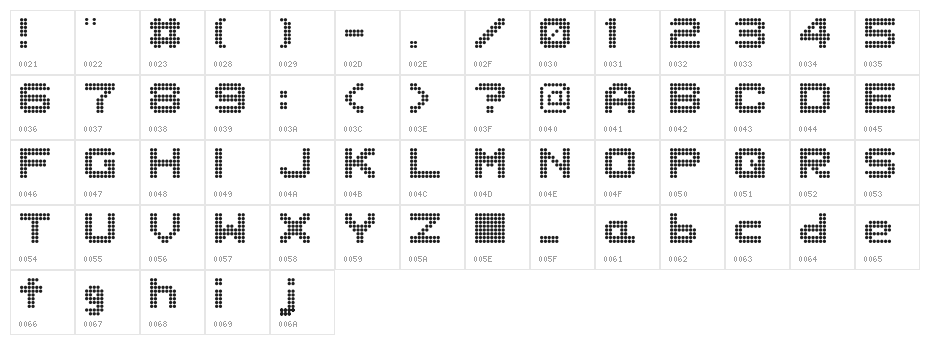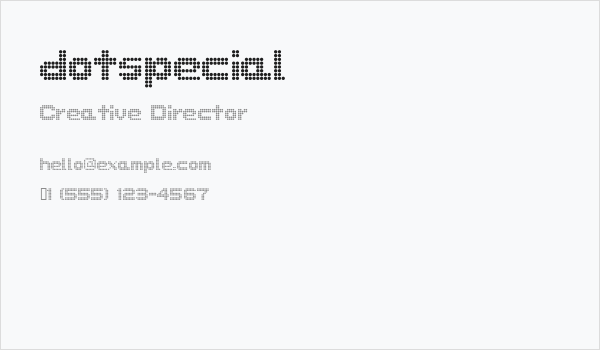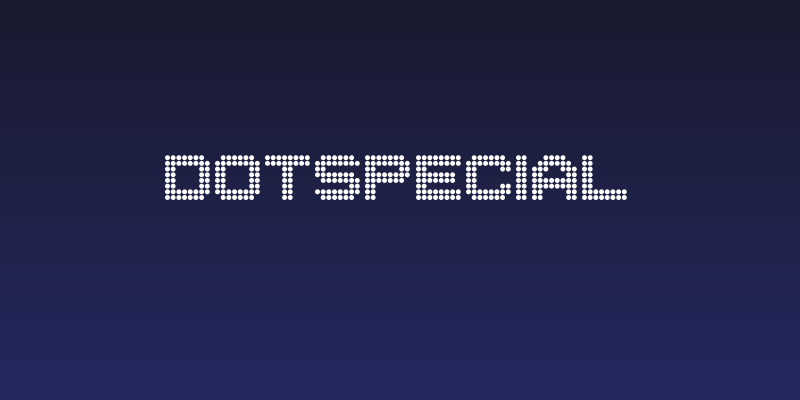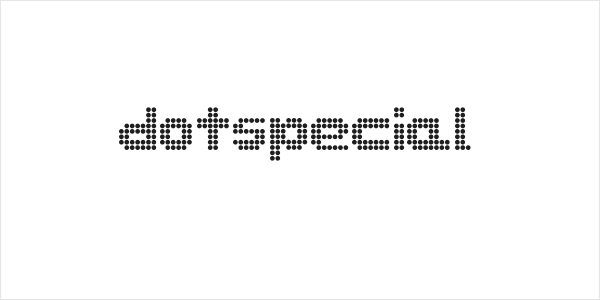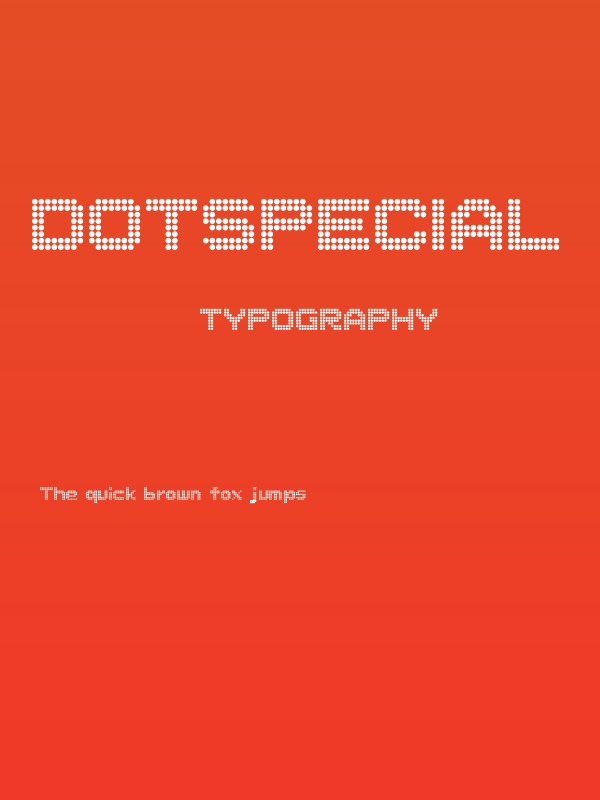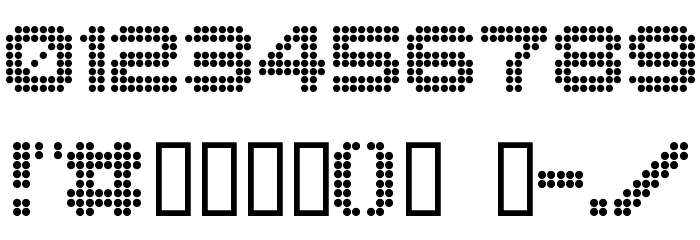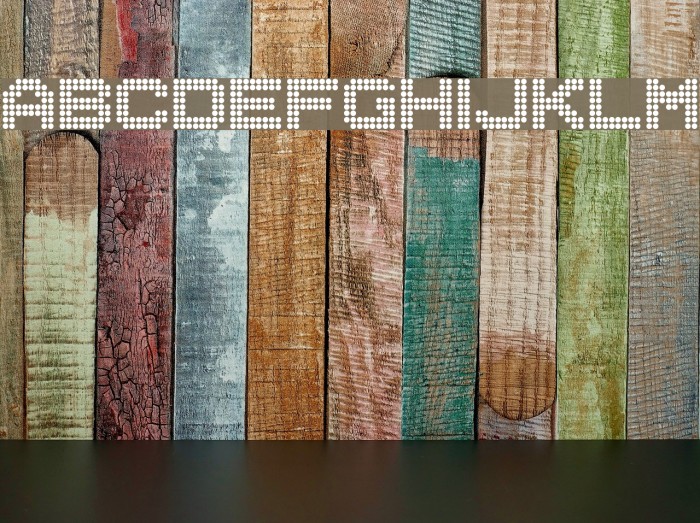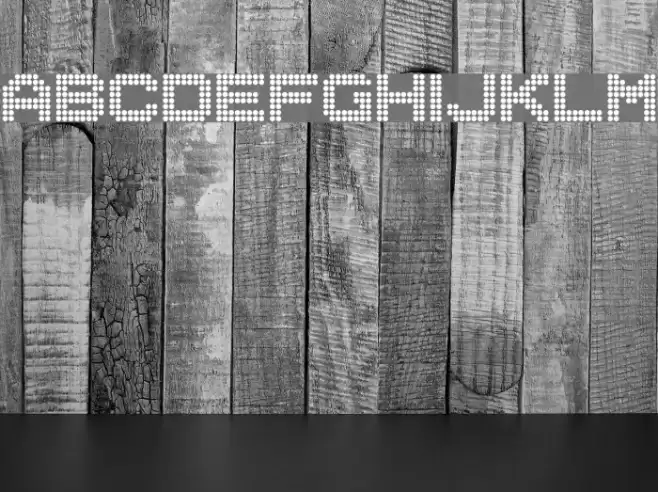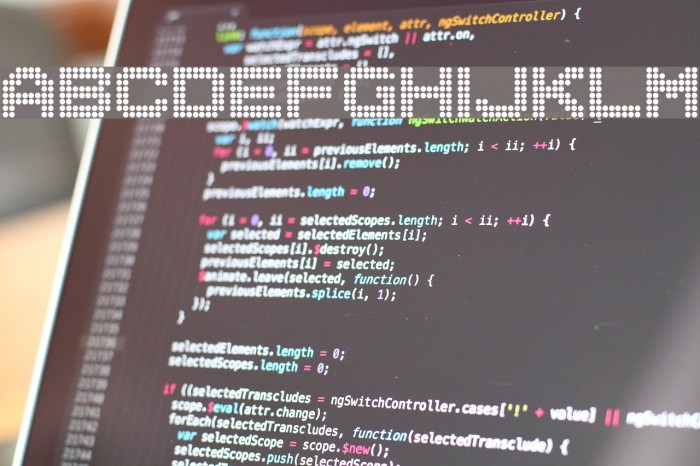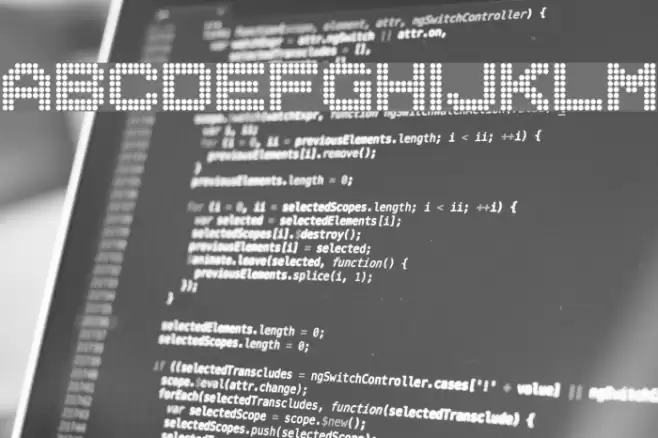
dotspecial Font
dotspecial Description
This font features a unique design composed entirely of small, evenly spaced dots forming each character. The geometric arrangement gives it a digital, modern feel reminiscent of LED displays or dot matrix printers. The characters maintain a consistent height and width, providing a uniform appearance across both uppercase and lowercase letters. Numbers and special characters follow the same dot pattern, ensuring visual coherence. The style is playful yet structured, making it suitable for creative and tech-oriented projects. Its distinct appearance captures attention while remaining legible.
| Use Case | Headlines, Logos, Digital displays |
| Proposed Projects | Ideal for digital displays, tech-themed designs, posters, and creative branding. |